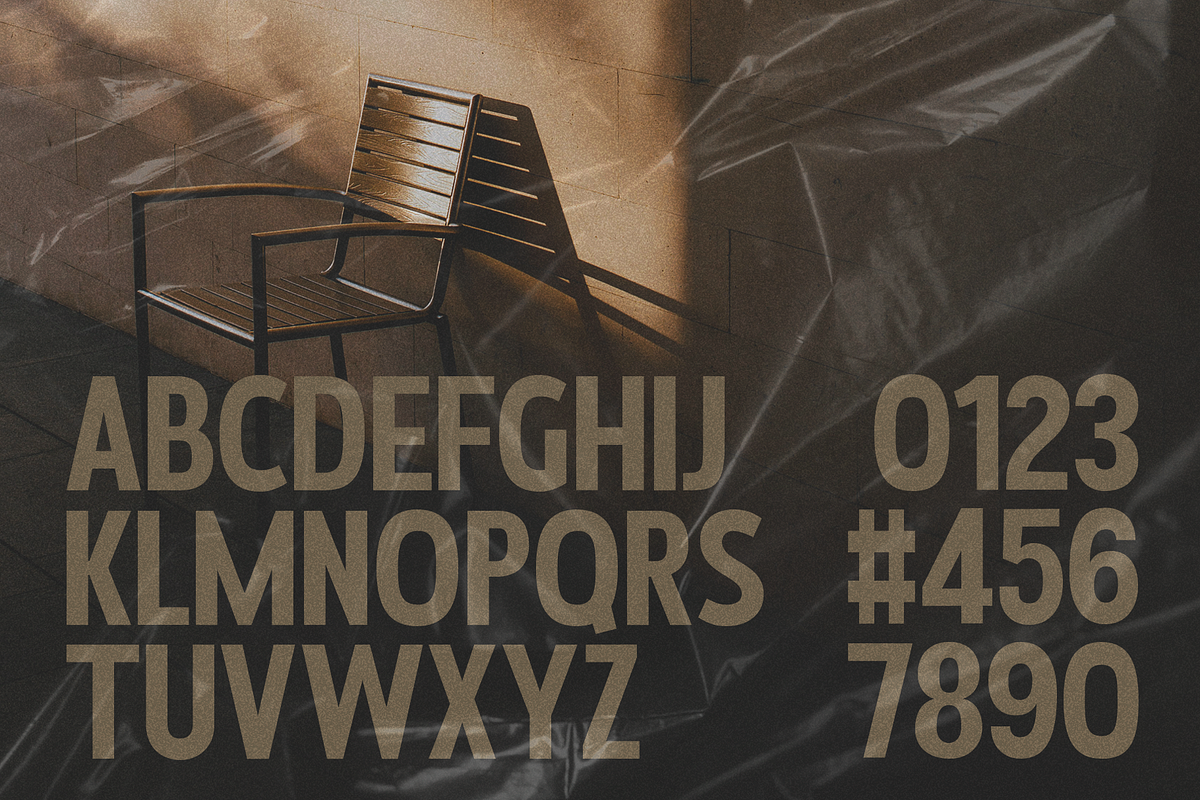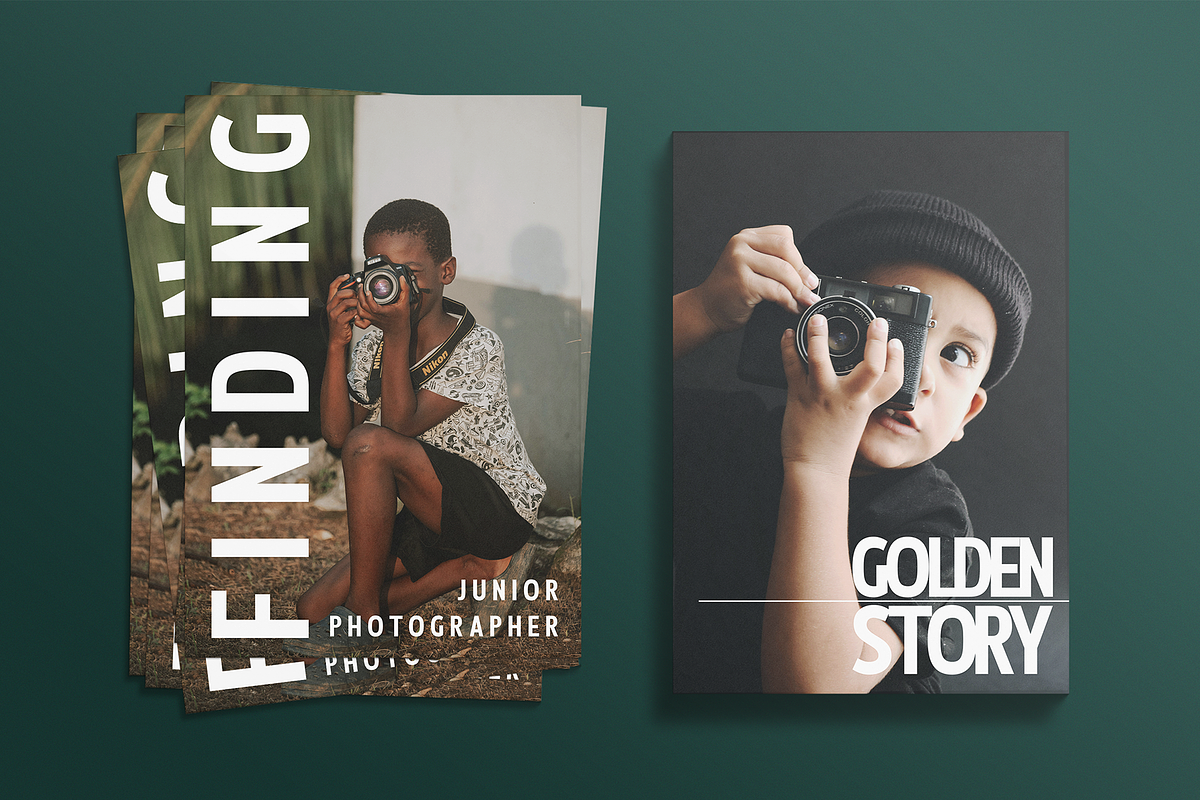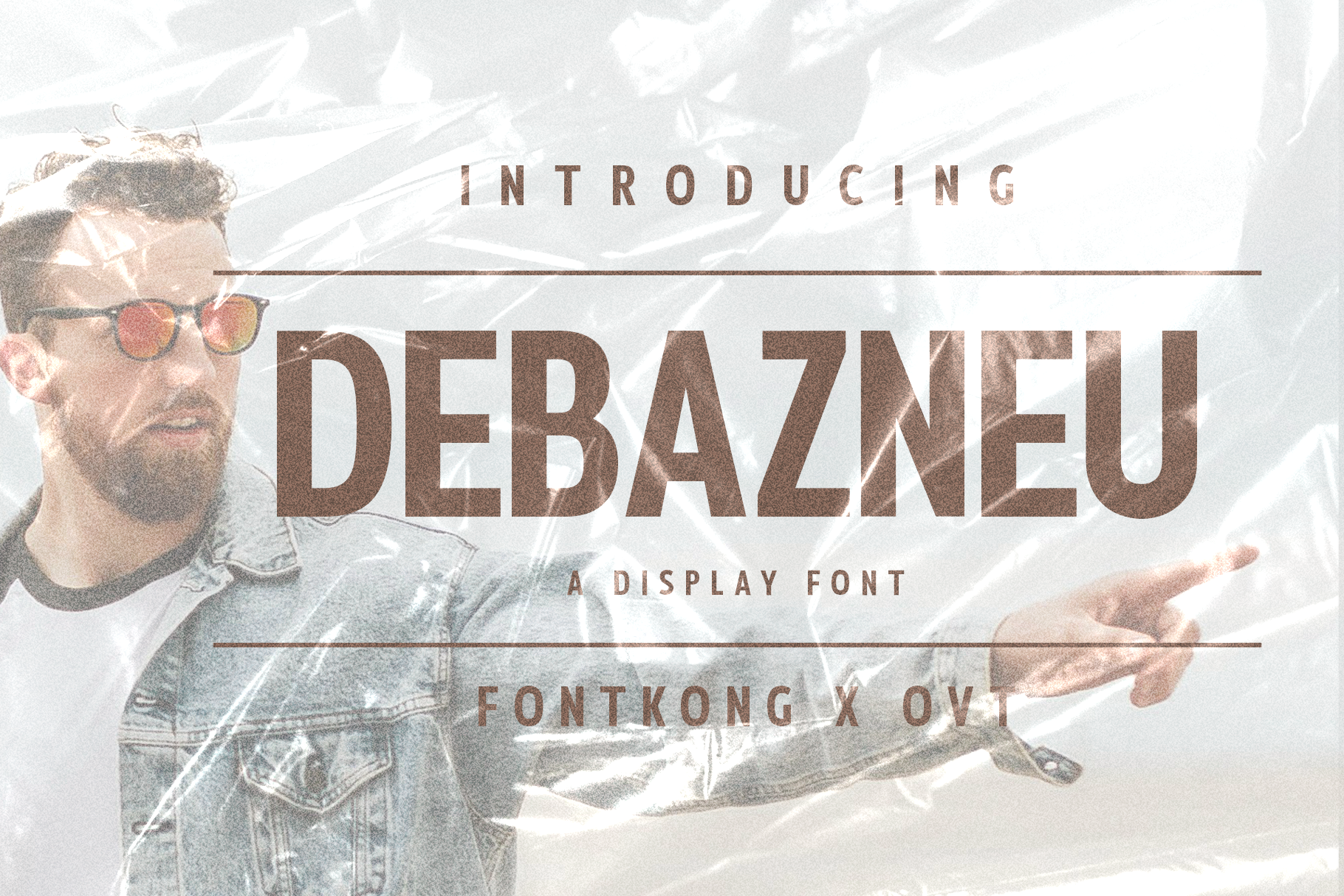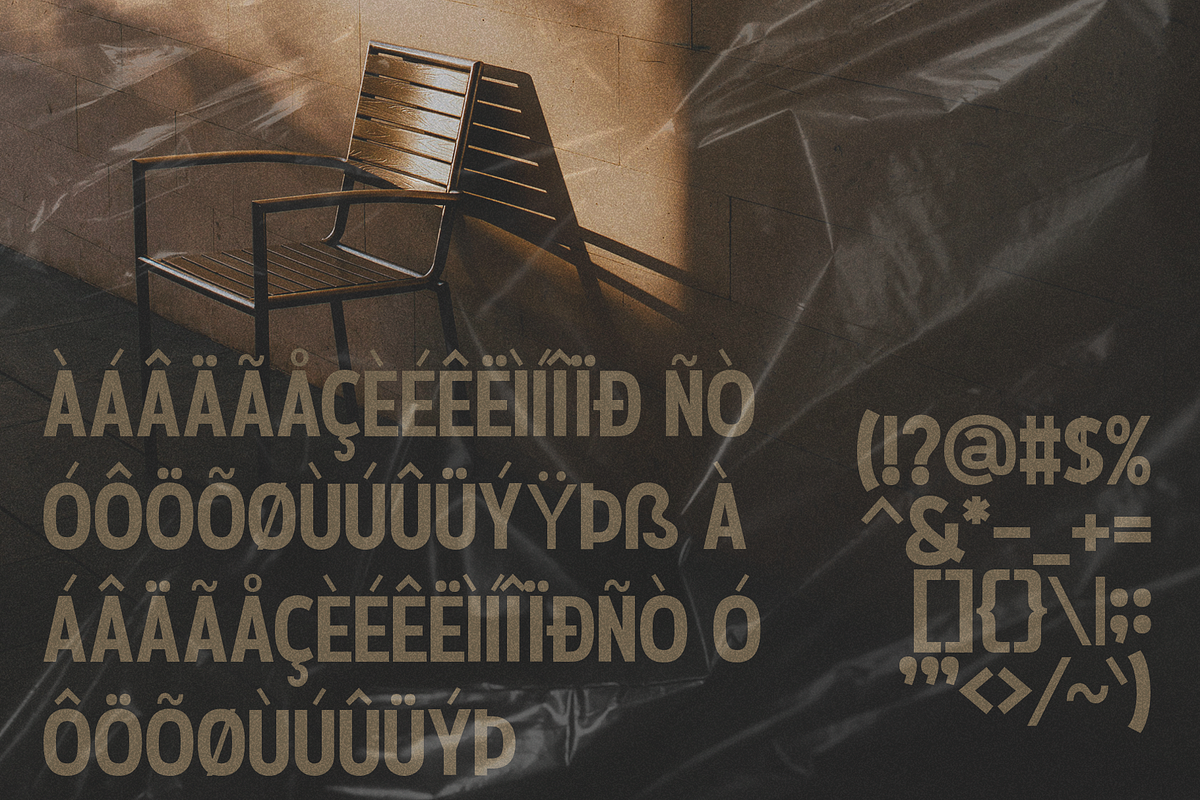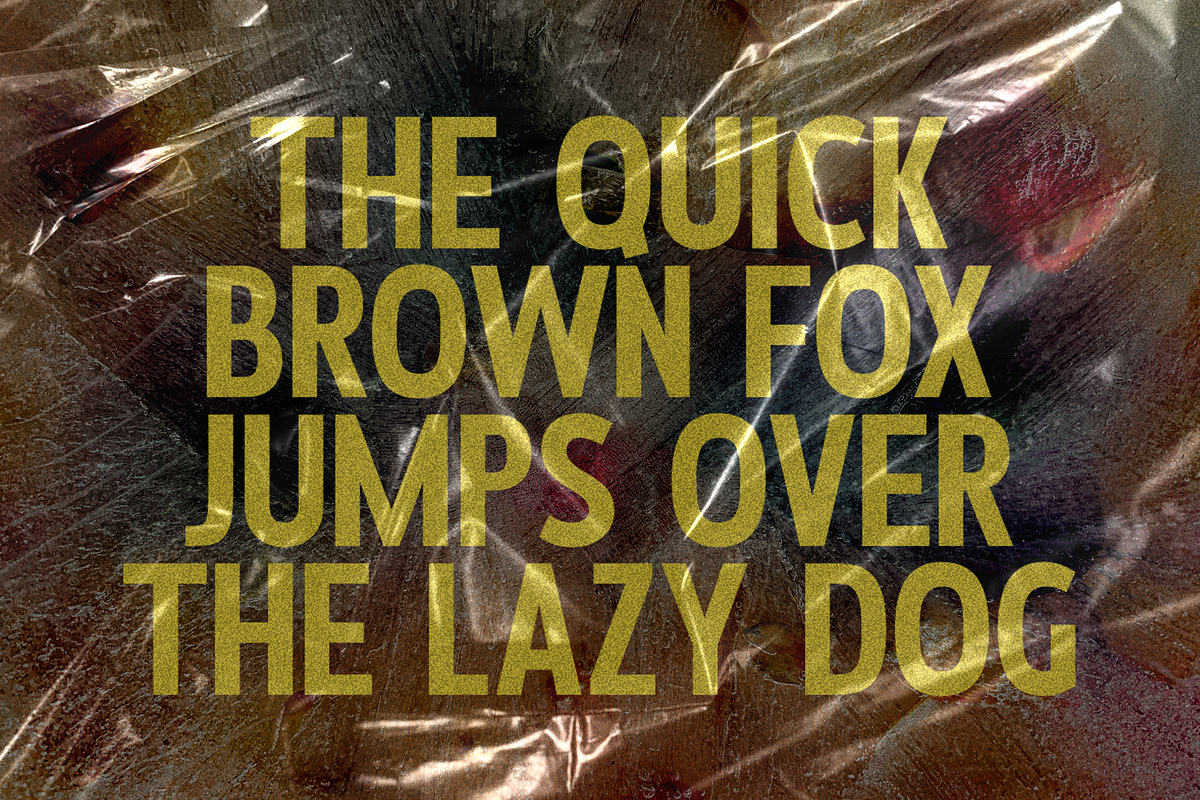
Debazneu - Display Font
Introducing "Debazneu," a striking display font designed to give your projects a distinctive and memorable visual identity. Perfect for designers, advertisers, and creatives who want to make a bold statement, Debazneu combines modern design with unique character shapes to deliver a font that stands out in any application.
Ideal for posters, headlines, logos, and branding materials, Debazneu’s bold and elegant style ensures your message is conveyed with clarity and impact. Each character is meticulously crafted to provide a clean, sharp look, making it perfect for high-visibility projects where both readability and aesthetics are crucial.
The "Debazneu" font includes a full set of uppercase and lowercase letters, numbers, and punctuation marks, providing the versatility and flexibility needed for various design applications. Whether you're developing dynamic advertisements or crafting unique brand identities, Debazneu enhances your work with its bold and sophisticated typography.
Elevate your designs with Debazneu, a display font that delivers distinctive style and visual impact.